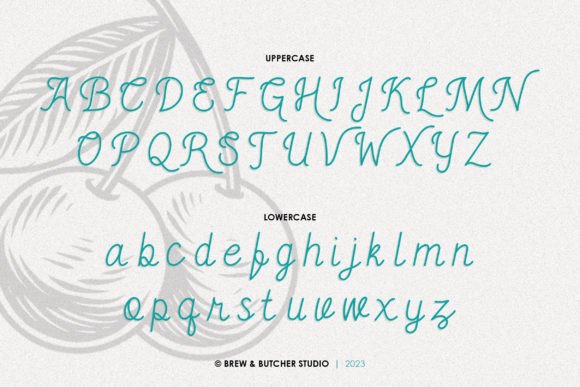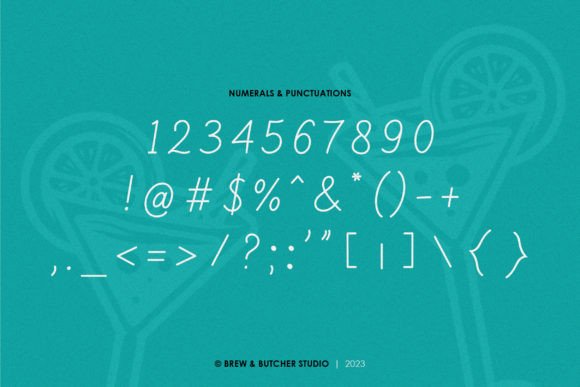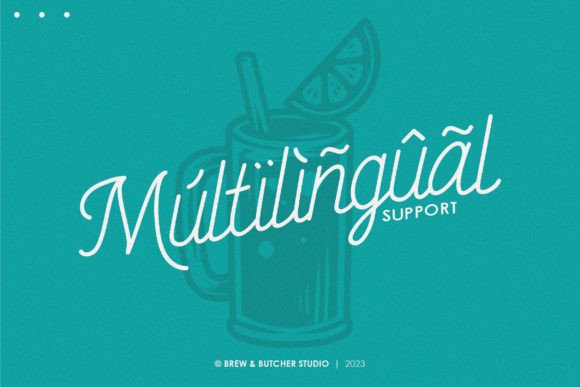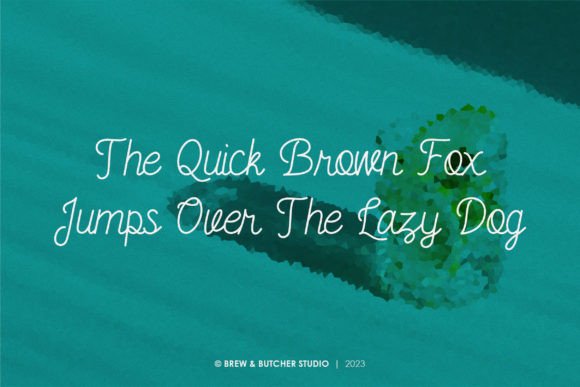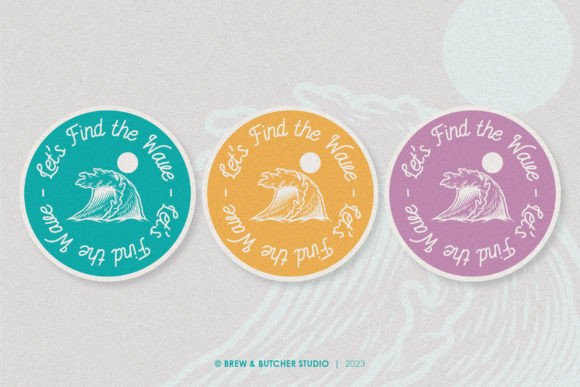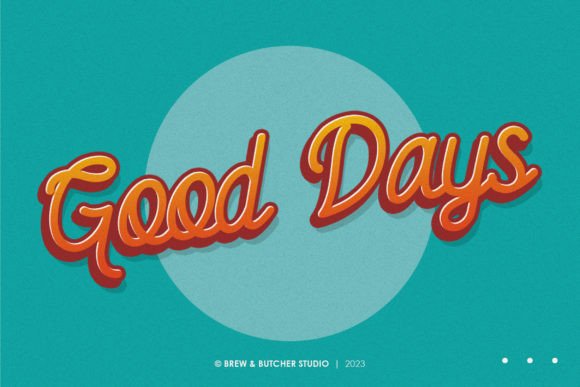
Introducing Bay Chembay Font: Elevate Your Designs with a Unique Monoline Style
In the world of typography, fonts play a crucial role in making or breaking a design. A well-chosen font can elevate your project from ordinary to extraordinary. If you’re a designer, crafter, or simply someone who loves to dabble in creative projects, you’re in luck! Today, we’re excited to introduce you to the Bay Chembay Font, a stunning monoline font style that’s sure to take your designs to the next level.
What is Bay Chembay Font?
Bay Chembay is a monoline font style that boasts simple and unique lines. The term “monoline” refers to a font style that is characterized by lines of a single width, giving it a clean and minimalist look. This font is perfect for those who appreciate the beauty of simplicity and want to add a touch of elegance to their designs.
What Makes Bay Chembay Font Special?
So, what sets Bay Chembay apart from other fonts out there? Here are a few key features that make it a standout:
- Unique Lines: The monoline style of Bay Chembay gives it a distinctive look that’s both modern and sophisticated.
- Simple yet Versatile: Despite its simple design, Bay Chembay is incredibly versatile and can be used for a wide range of projects.
- Highly Readable: The clean lines and single-width strokes make Bay Chembay highly readable, even at smaller sizes.
Best Uses for Bay Chembay Font
Bay Chembay is a versatile font that can be used for a variety of projects, including:
- Headers and Headlines: The bold and modern look of Bay Chembay makes it perfect for headers and headlines.
- Posters and Flyers: Add a touch of sophistication to your posters and flyers with Bay Chembay.
- Banners: Whether you’re creating a banner for a website, social media, or a physical event, Bay Chembay is a great choice.
- Portfolios: Use Bay Chembay to create a stunning portfolio that showcases your work in style.
- Album Covers: Give your music or podcast a professional look with Bay Chembay.
- and more! The possibilities are endless with Bay Chembay. Its unique style and versatility make it suitable for a wide range of creative projects.
Why Designers and Crafters Love Bay Chembay Font
Designers and crafters are always on the lookout for fonts that can help them create unique and visually appealing projects. Bay Chembay has quickly become a favorite among creatives due to its:
- Ease of Use: Bay Chembay is easy to use and can be incorporated into a variety of design software.
- Customizability: The monoline style of Bay Chembay makes it easy to customize and pair with other fonts.
- Uniqueness: Bay Chembay’s distinctive look helps designers and crafters create projects that stand out from the crowd.
| Font Name | Bay Chembay Font |
| Author | brewandbutcher |
In conclusion, Bay Chembay Font is a game-changer for designers and crafters looking to elevate their projects with a unique and modern monoline font style. Its simplicity, versatility, and readability make it perfect for a wide range of creative projects. Whether you’re creating headers, posters, flyers, or album covers, Bay Chembay is sure to become your go-to font. So why wait? Give Bay Chembay a try today and take your designs to new heights!